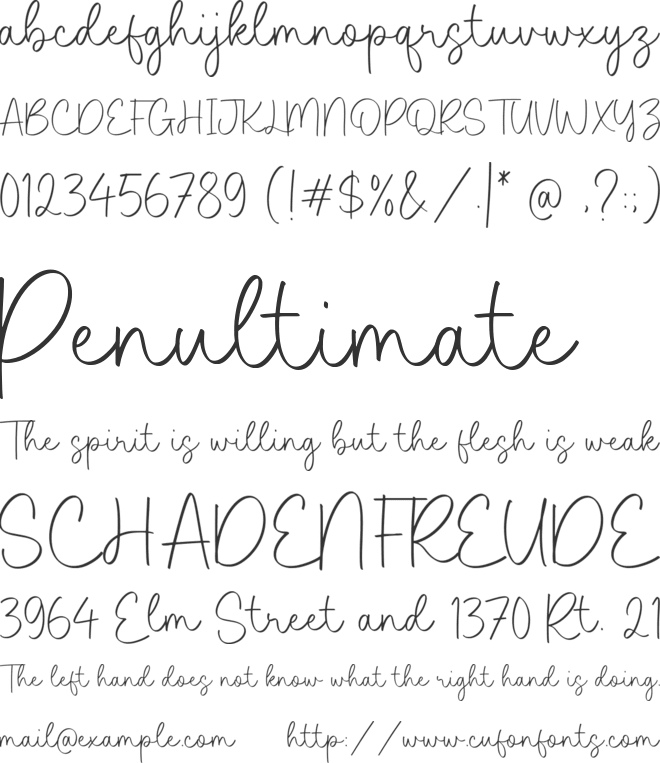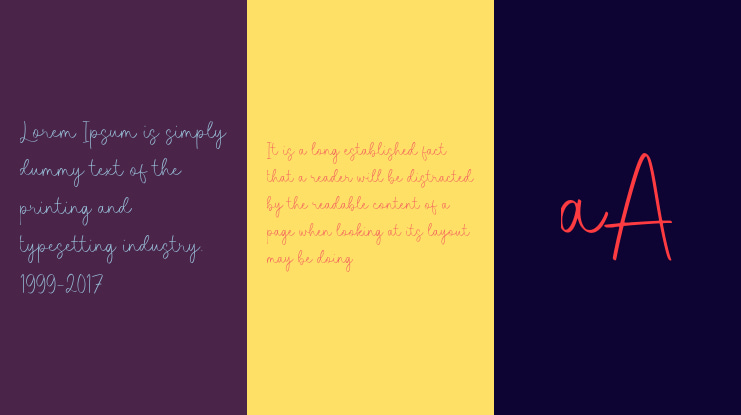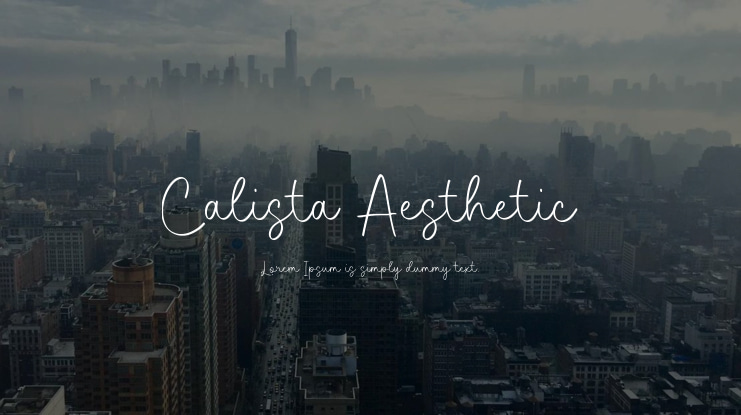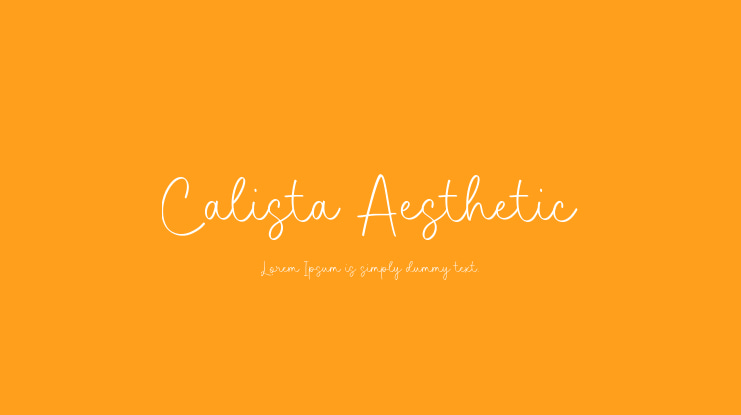
Introducing Calista Aesthetic, a unique handwritten typeface that embodies modernity and freshness. This font will add a warm and inviting touch to your business, allowing you to create a captivating experience for your audience.
Calista Aesthetic is the perfect choice for various purposes such as product packaging, branding projects, magazine layouts, social media posts, weddings, or simply for emphasizing words on different backgrounds.
Notable features of Calista Aesthetic include: